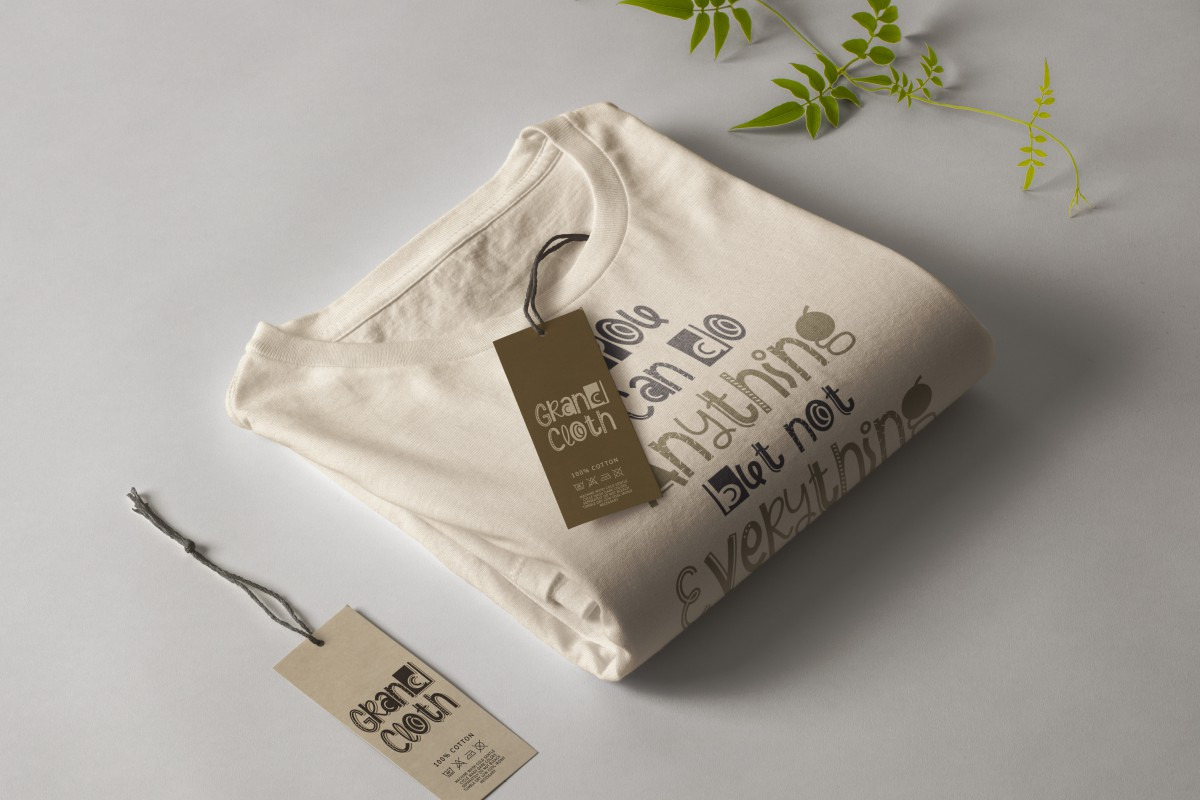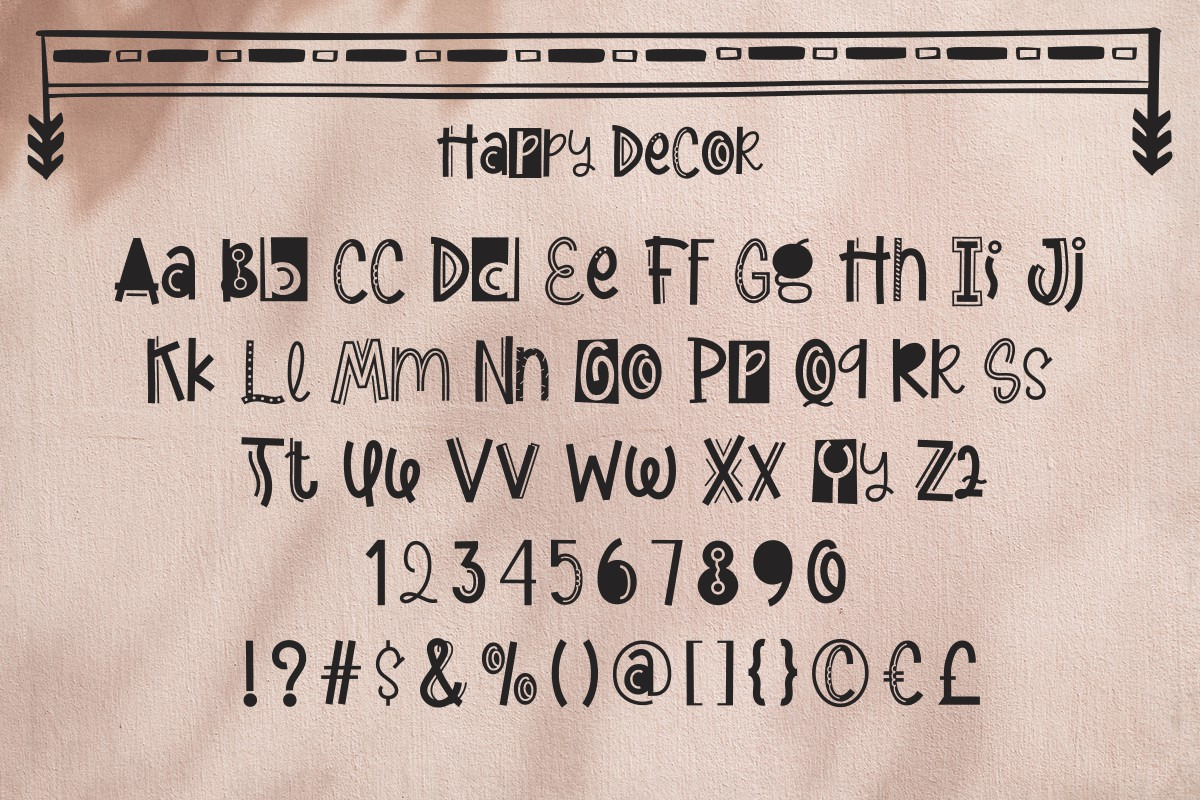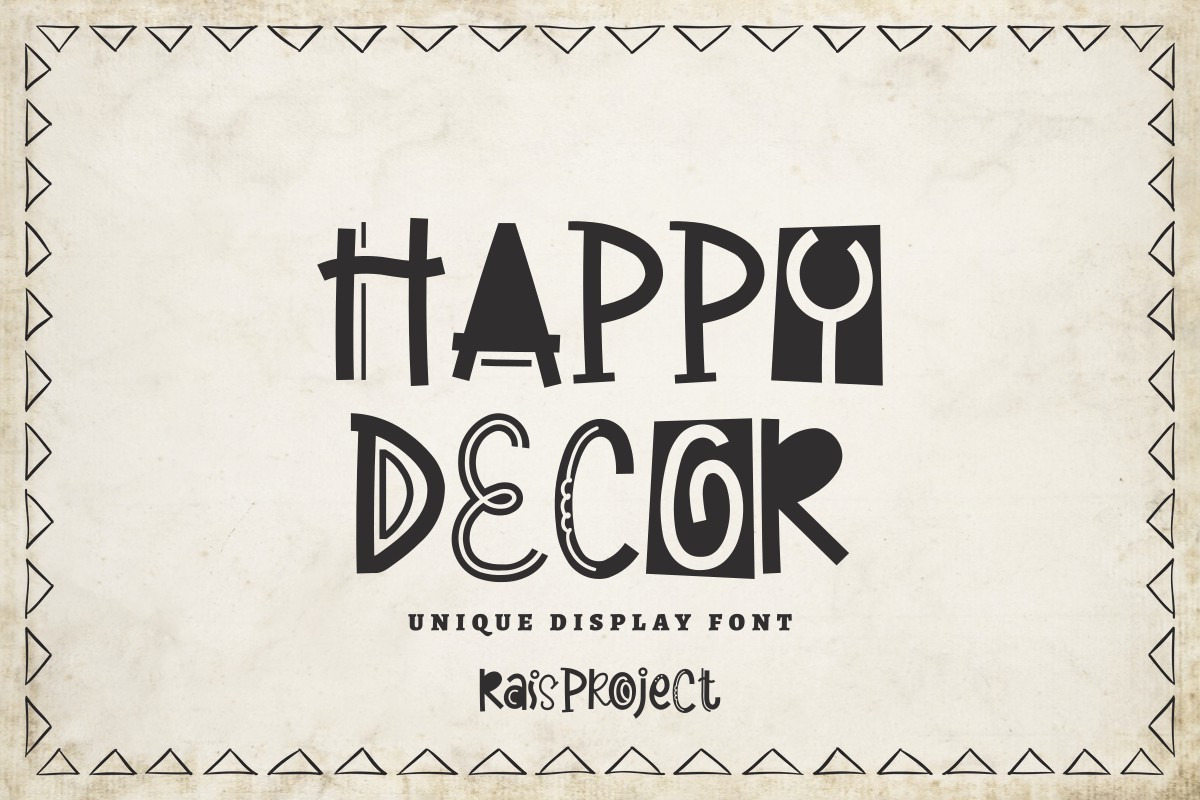
Happy Decor Font
Happy Decor Font is a playful decorative font with crafting and DIY theme. This is a unique lettered font with fun display. It embodies playfulness and authenticity and is the perfect choice for any handicrafts, children activity or school project.
Happy Decor Font Includes uppercase, lowercase, stylistic alternates, numbers and basic of symbol. Multilingual support with accented characters for international designers. Decorations and friendly font, featuring different shape on each character. It is guaranteed to add a extraordinary and out of the box to your next design. Fall in love with the included handcraft art themed, and turn any decoration project into a true standout!